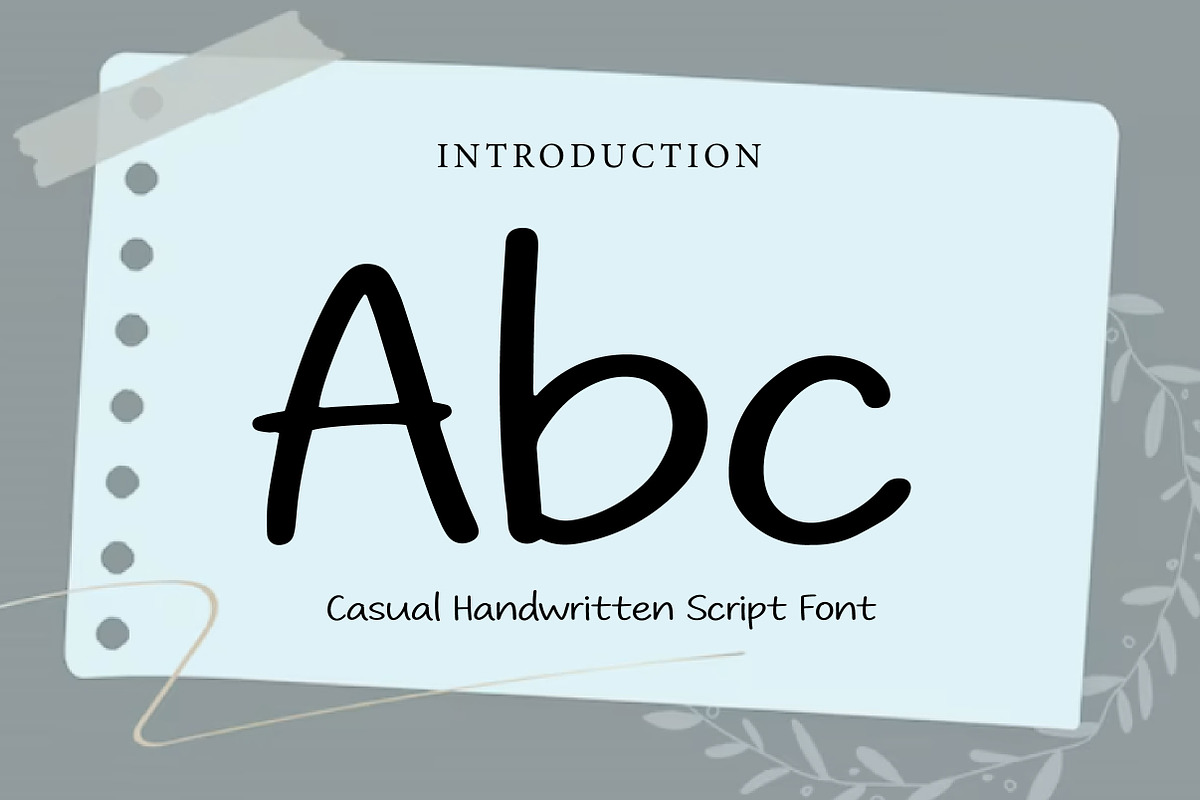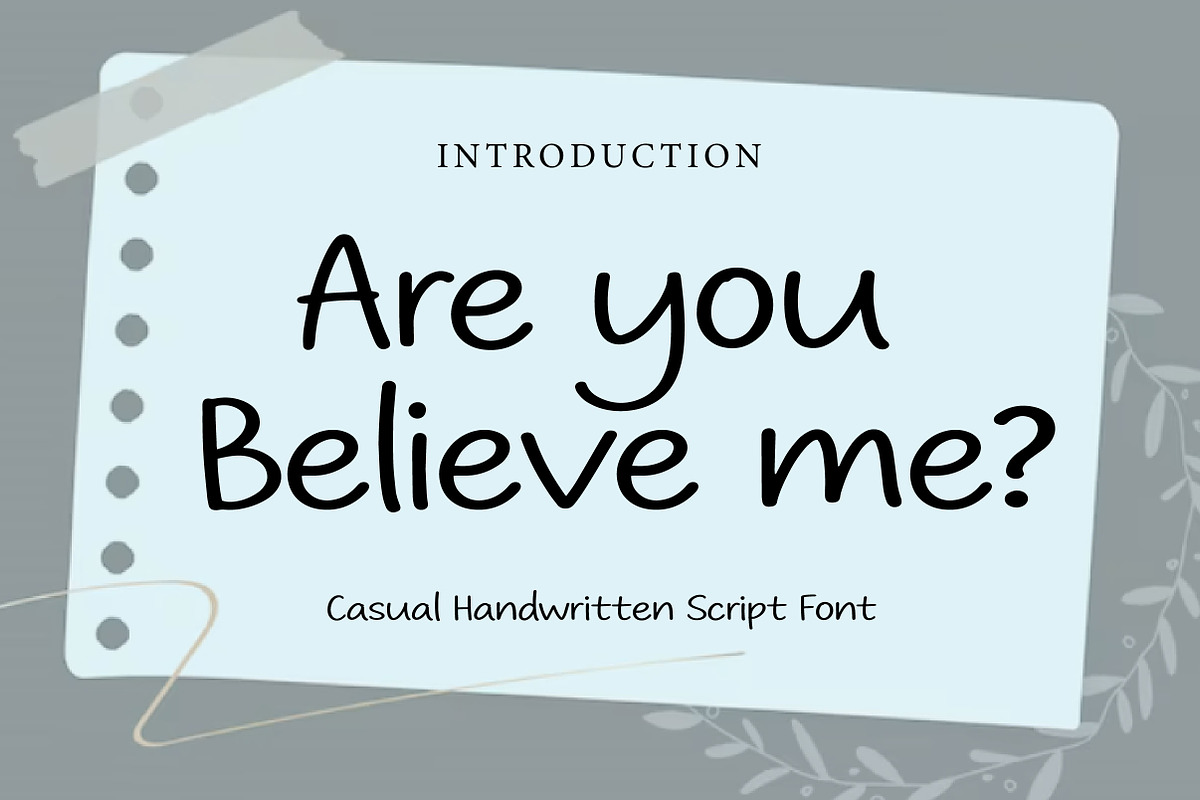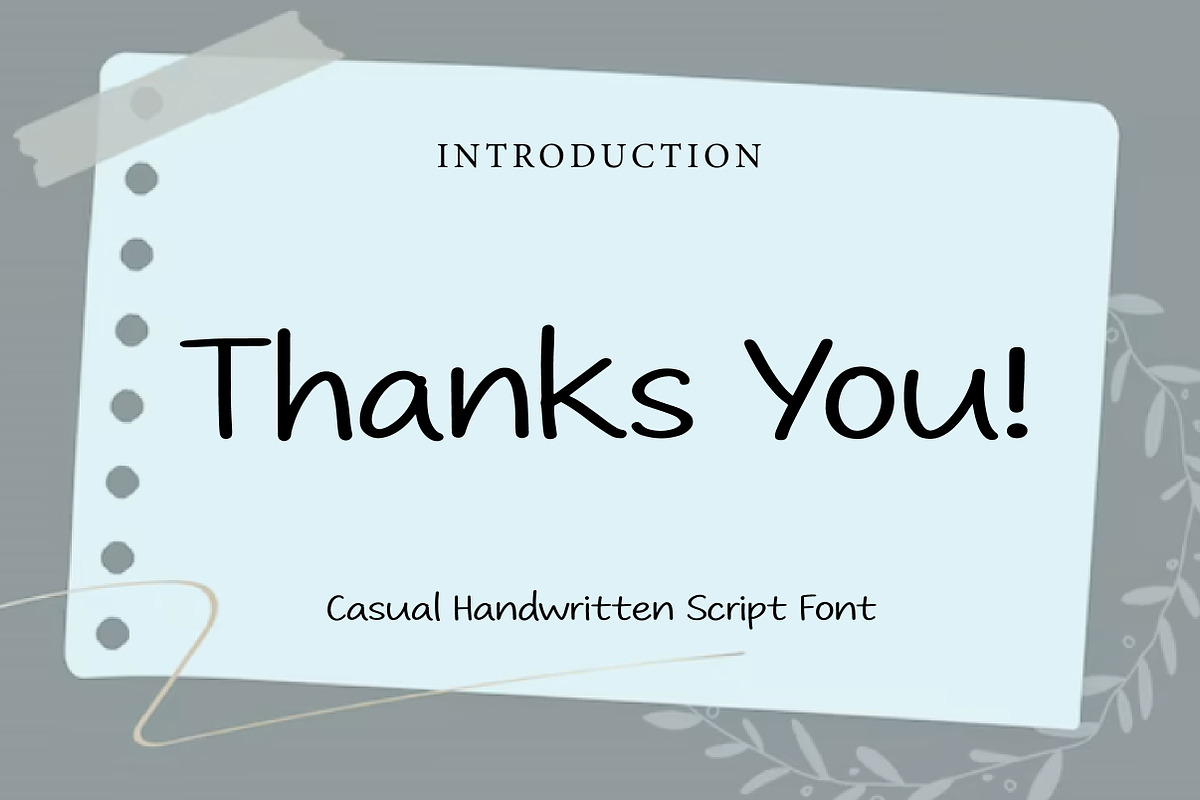
Are you Believe me
Are You Believe Me – Casual Handwritten Script Font
Are You Believe Me is a natural, casual, and expressive handwritten script font perfect for quotes, branding, social media, and creative projects with a personal touch.
Are You Believe Me is a smooth and natural handwritten script font designed to give your text a personal, authentic, and friendly feel. With its relaxed strokes, slightly imperfect lines, and flowing style, this font captures the beauty of real handwriting.
This font is perfect for projects that need a human touch—whether it's inspirational quotes, social media posts, branding, invitations, or lifestyle designs. Its clean yet expressive character makes it versatile and easy to read while still maintaining a creative and emotional tone.
Are You Believe Me works beautifully in both digital and print formats, helping your designs feel warm, relatable, and engaging.